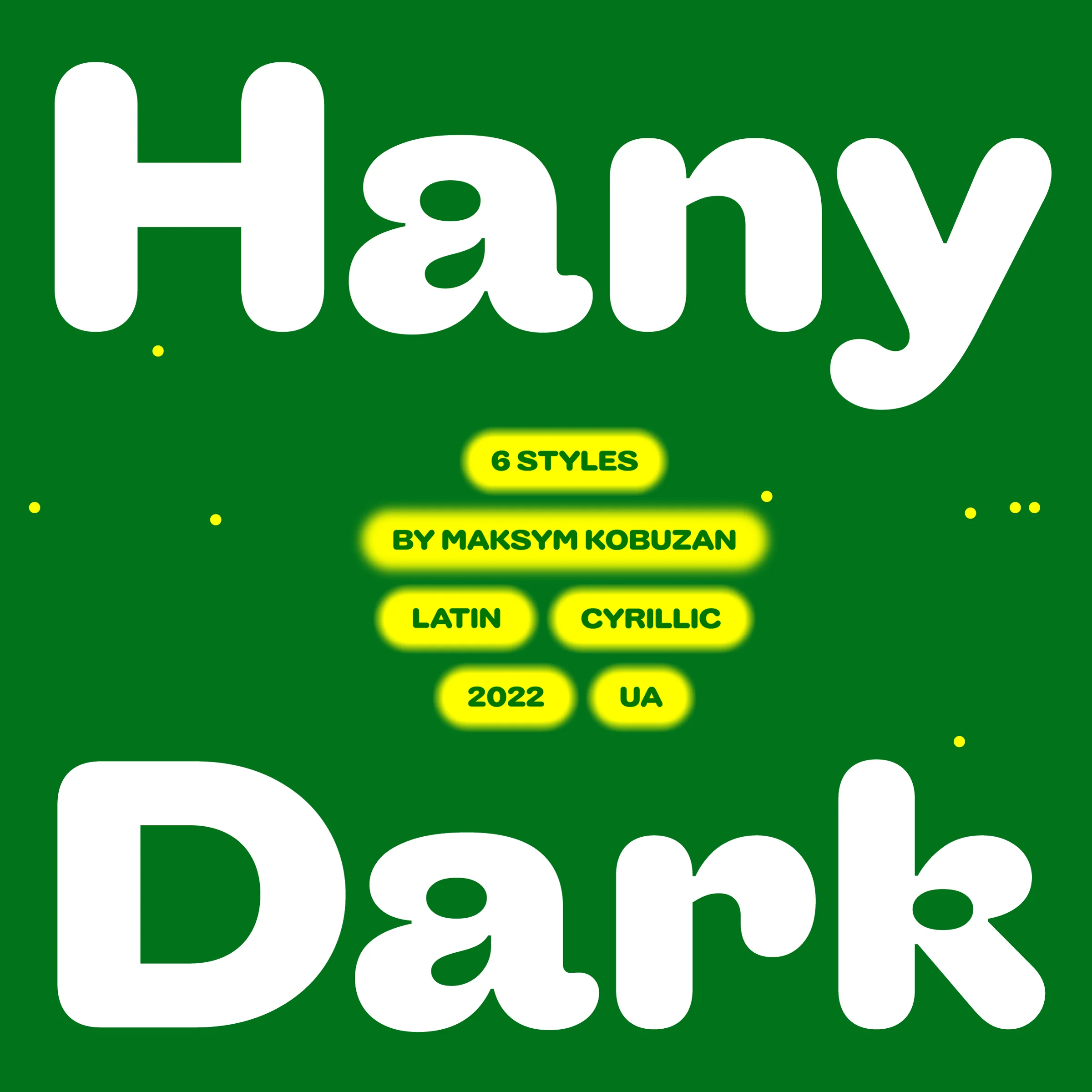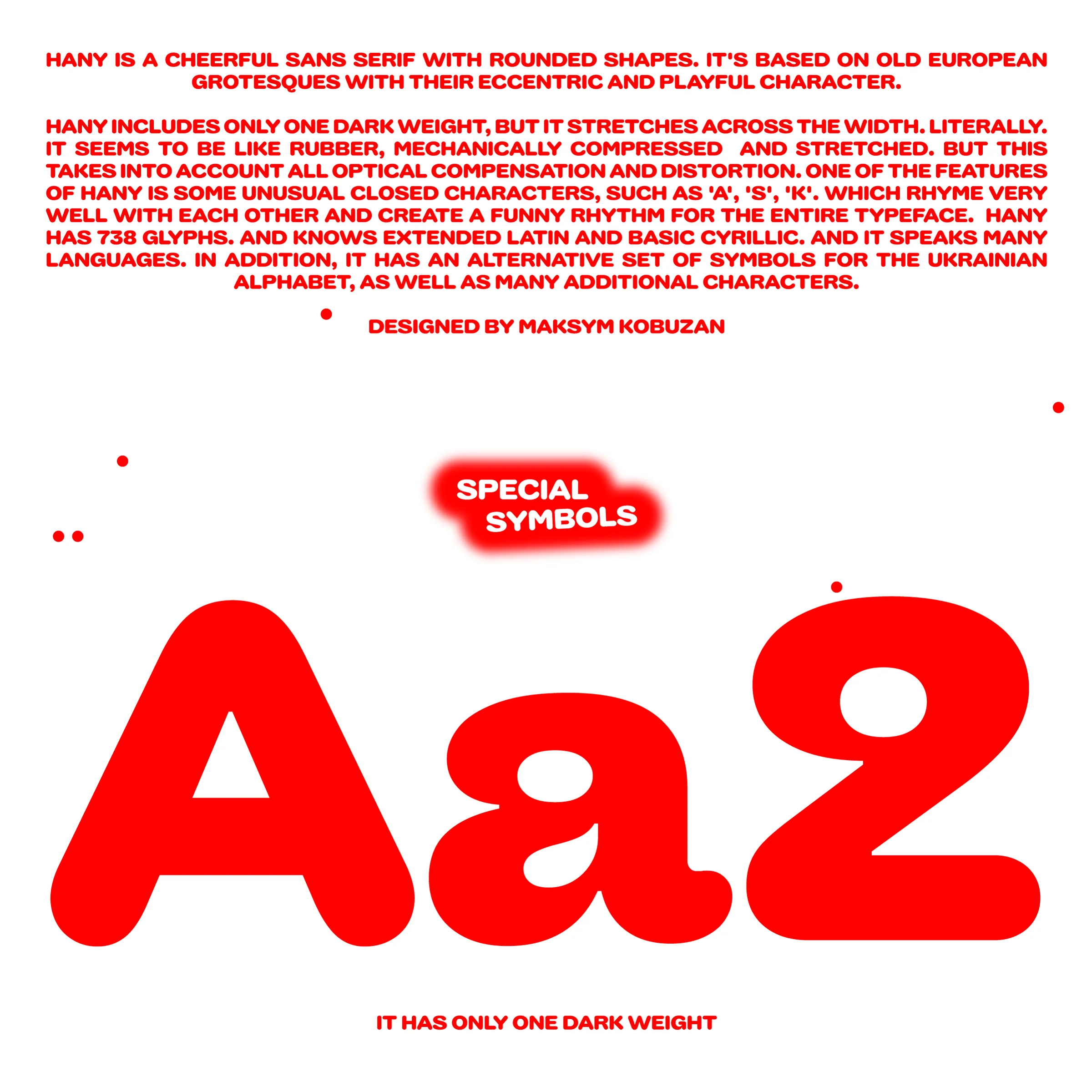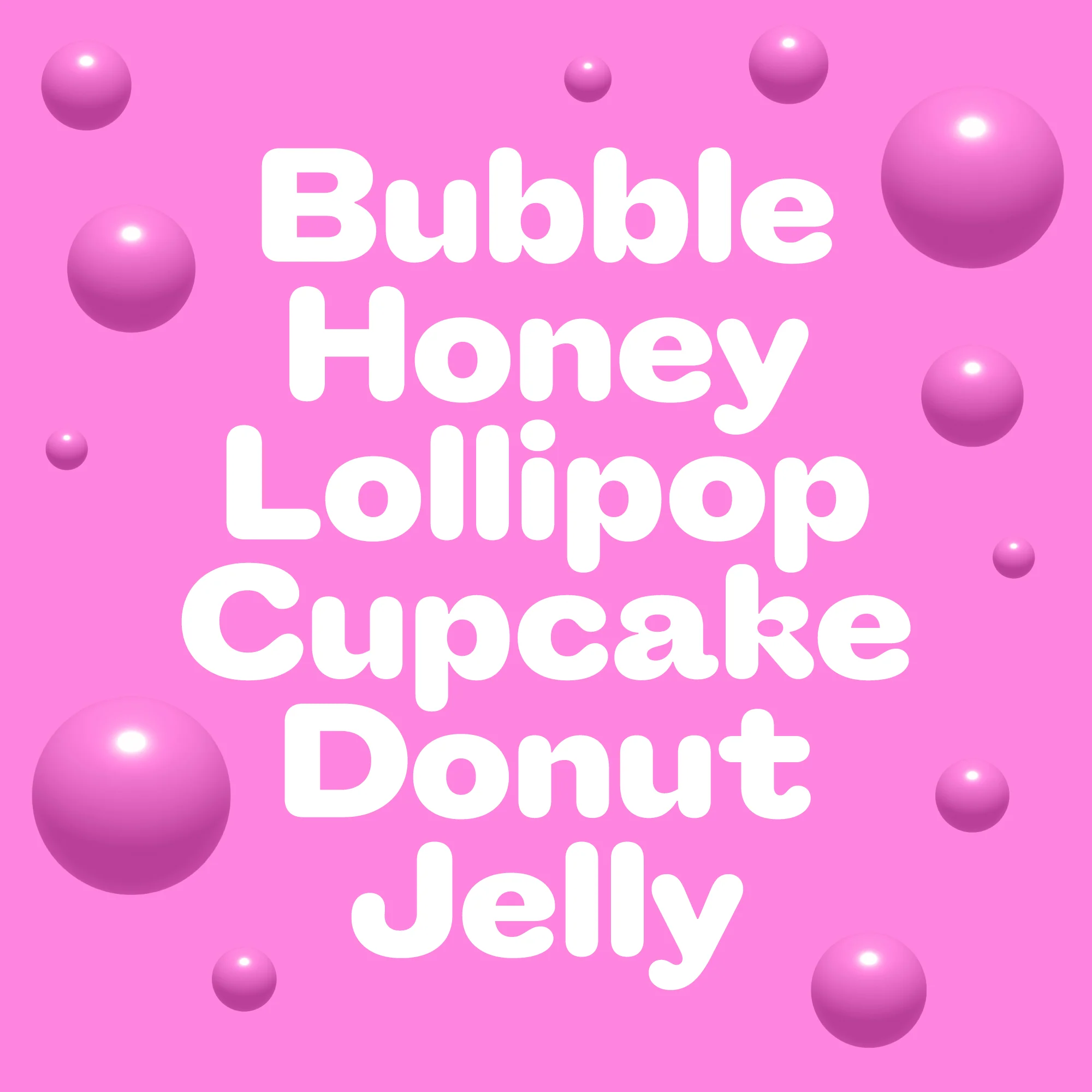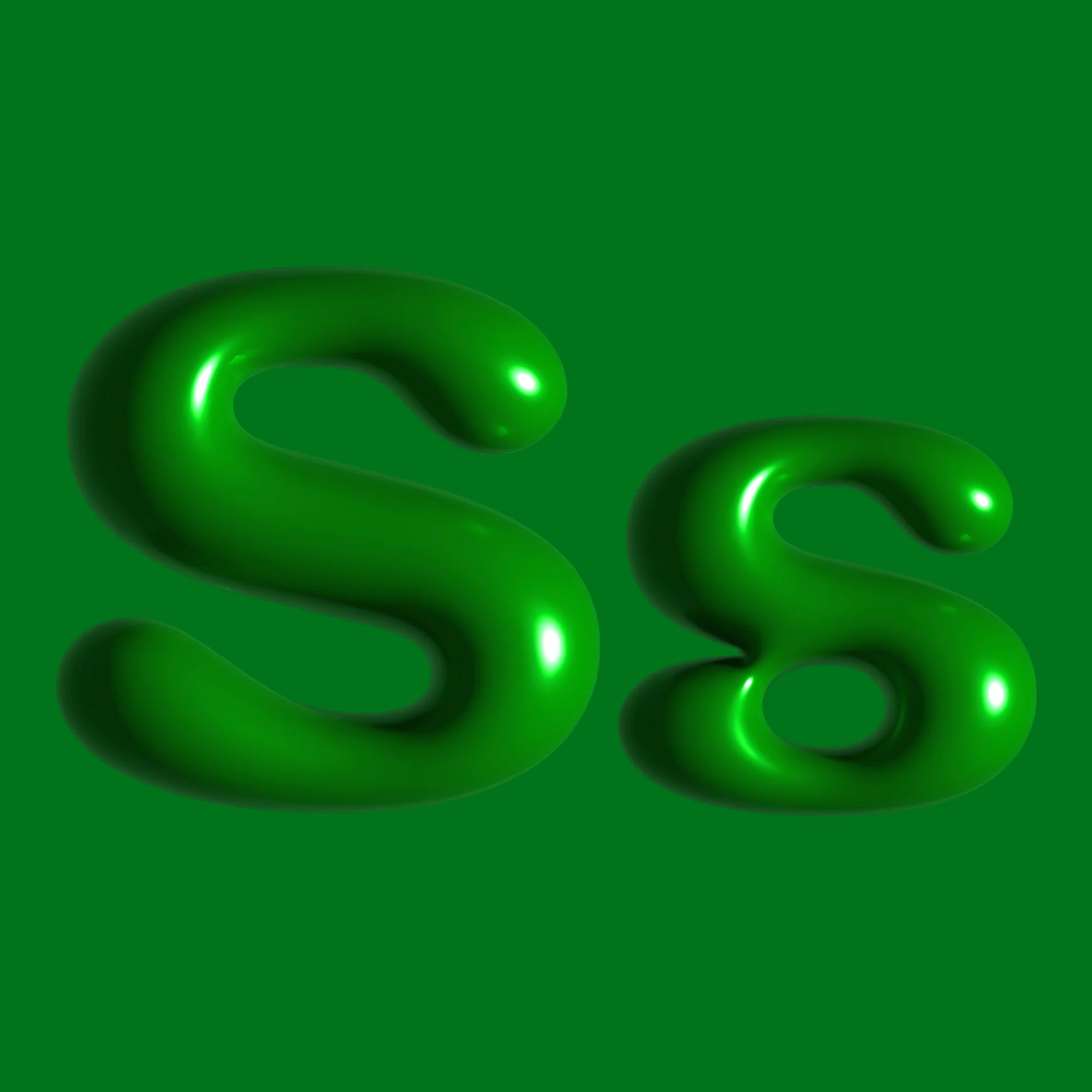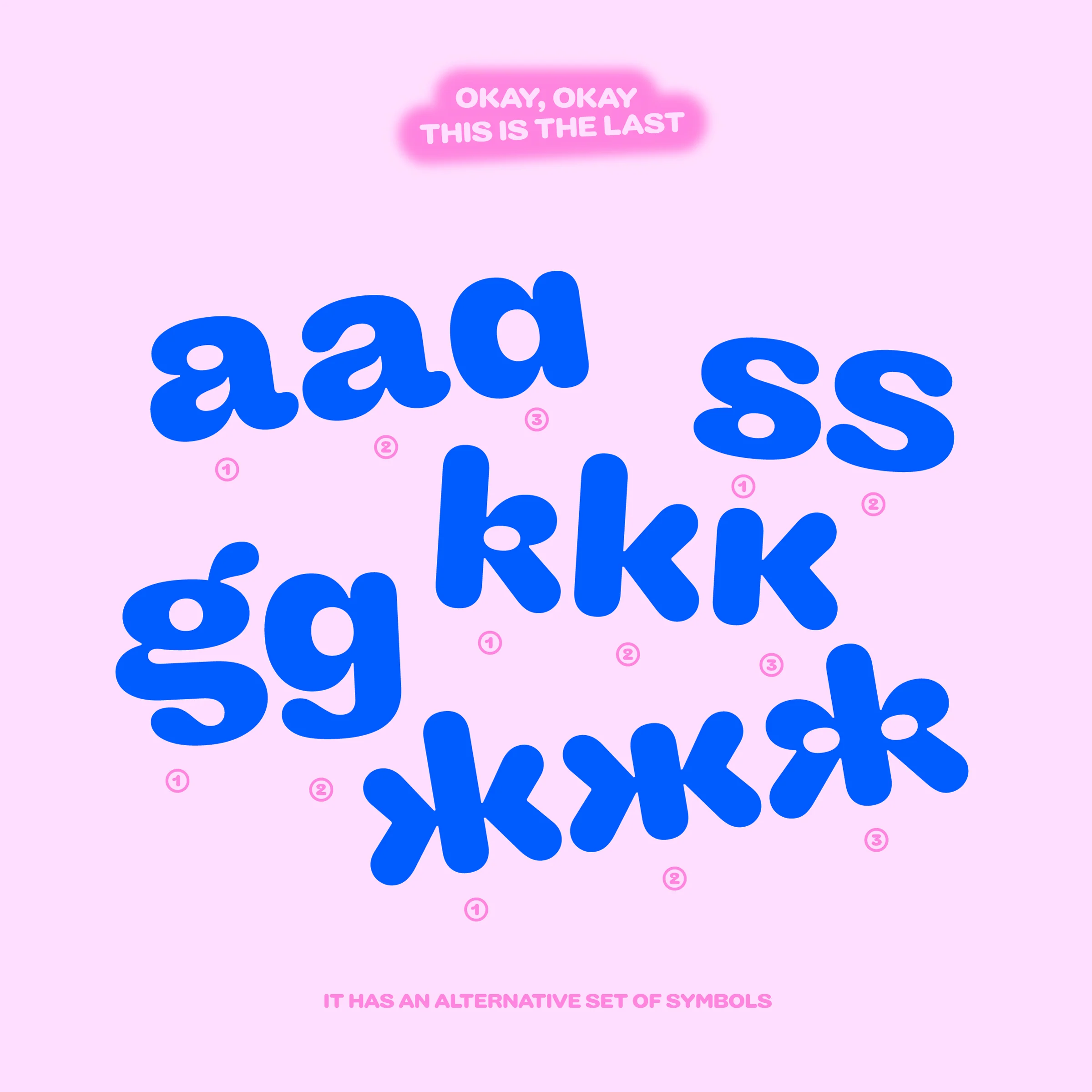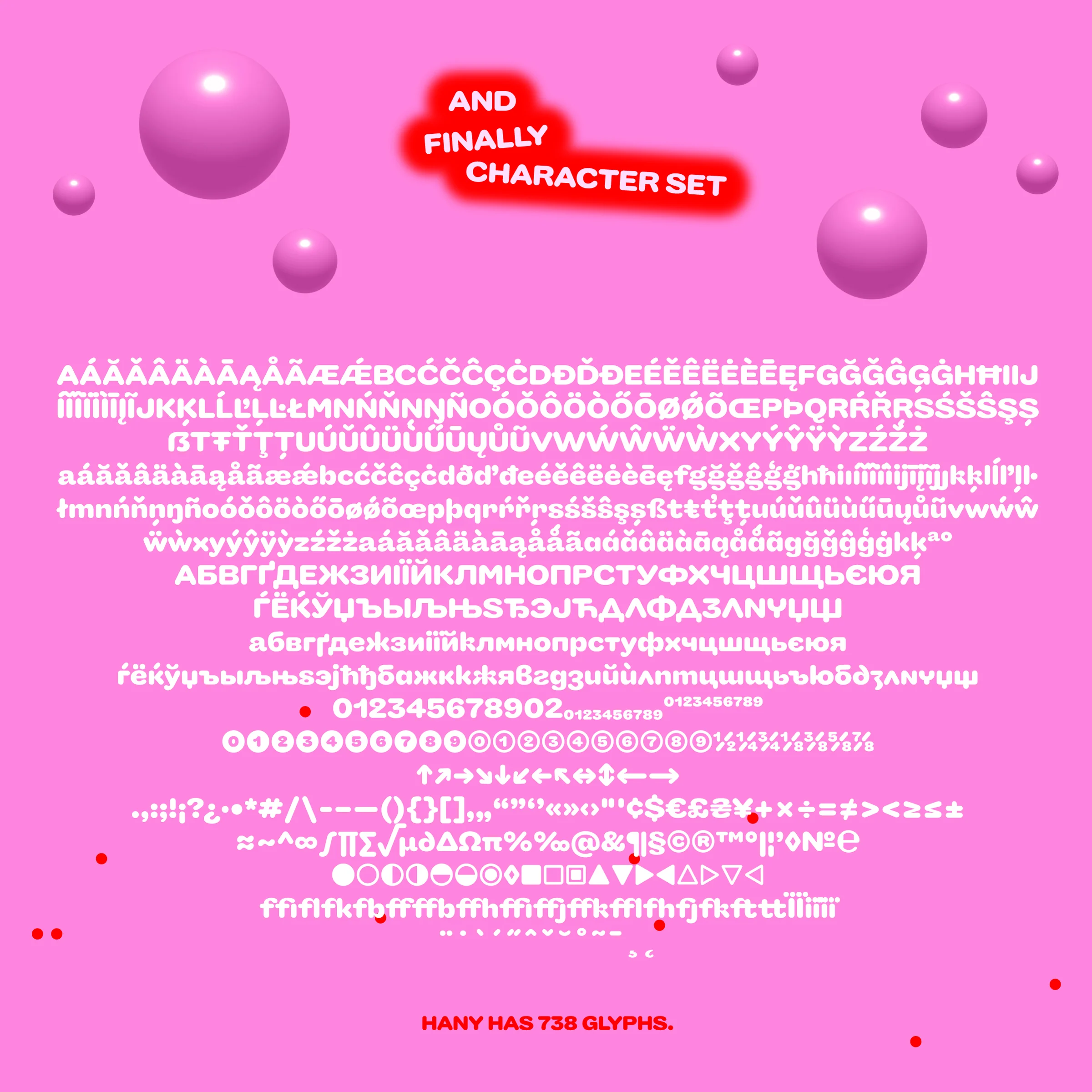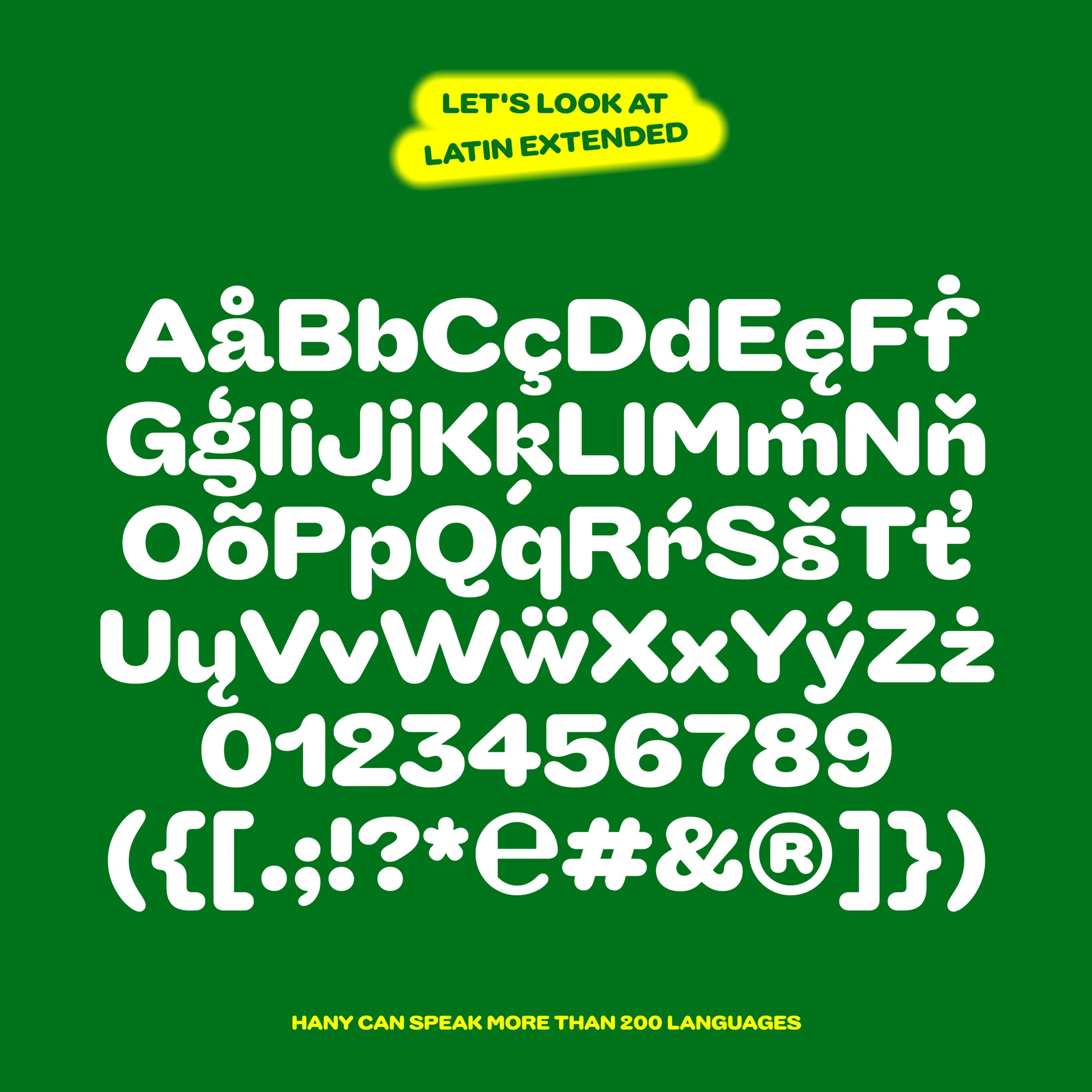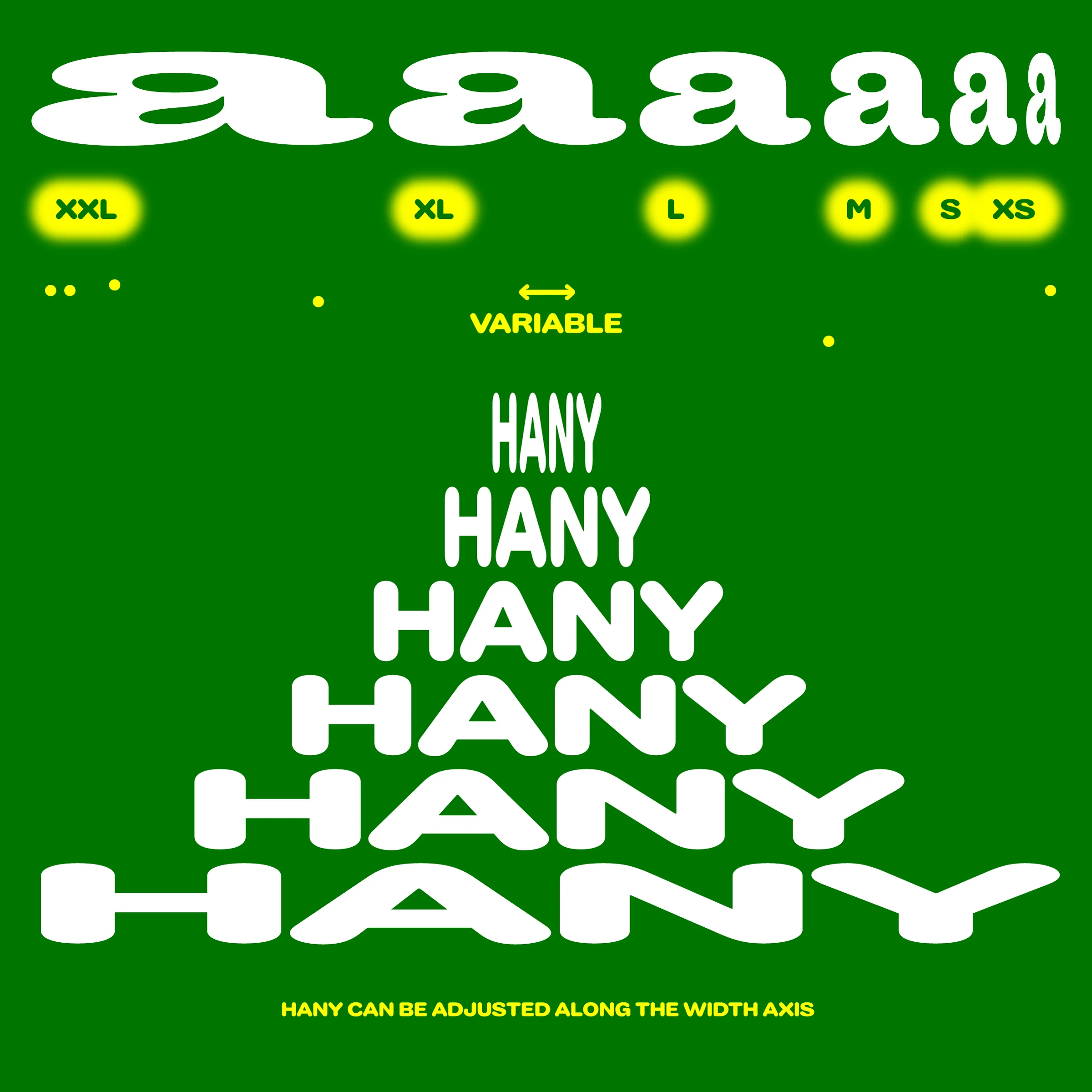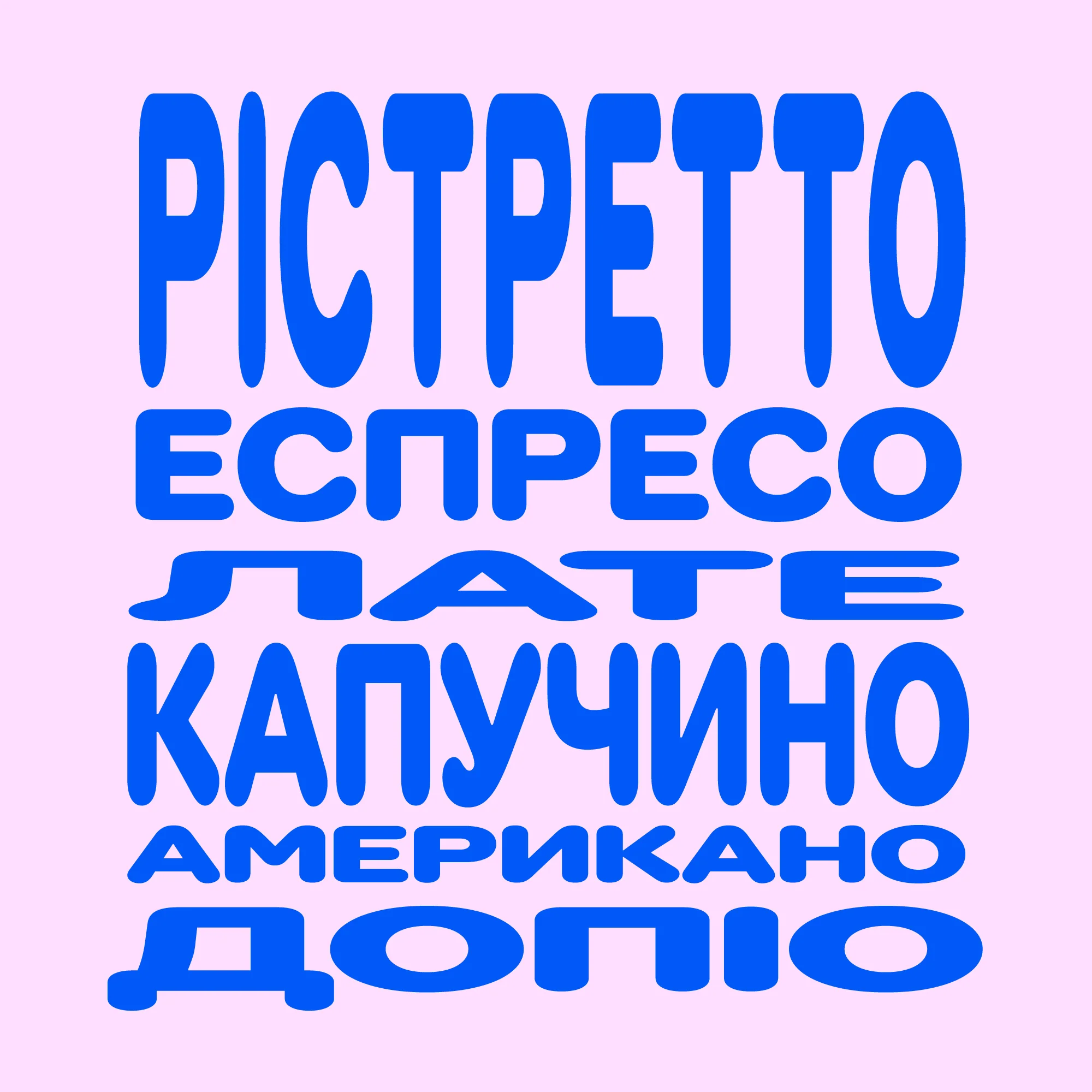
HANY
HANY is a cheerful sans serif typeface characterised by rounded shapes, designed to support both Latin and Ukrainian languages.
Featuring a single style that dynamically adjusts across the width axis, giving it a flexible and playful appearance akin to rubber that's been compressed and stretched, and despite these transformations, HANY maintains optimal optical balance and legibility.
A standout feature of HANY is its charming closed characters such as 'a', 's', and 'k', which harmonise beautifully to create a delightful rhythm throughout the typeface.
HANY is a cheerful sans serif typeface characterised by rounded shapes, designed to support both Latin and Ukrainian languages.
Featuring a single style that dynamically adjusts across the width axis, giving it a flexible and playful appearance akin to rubber that's been compressed and stretched, and despite these transformations, HANY maintains optimal optical balance and legibility.
A standout feature of HANY is its charming closed characters such as 'a', 's', and 'k', which harmonise beautifully to create a delightful rhythm throughout the typeface.